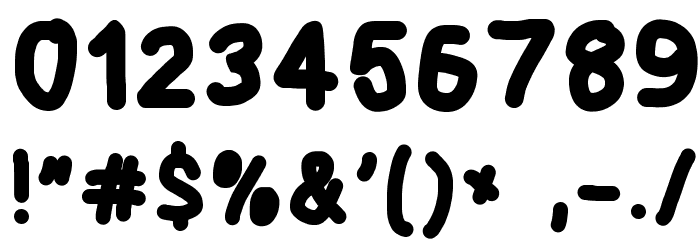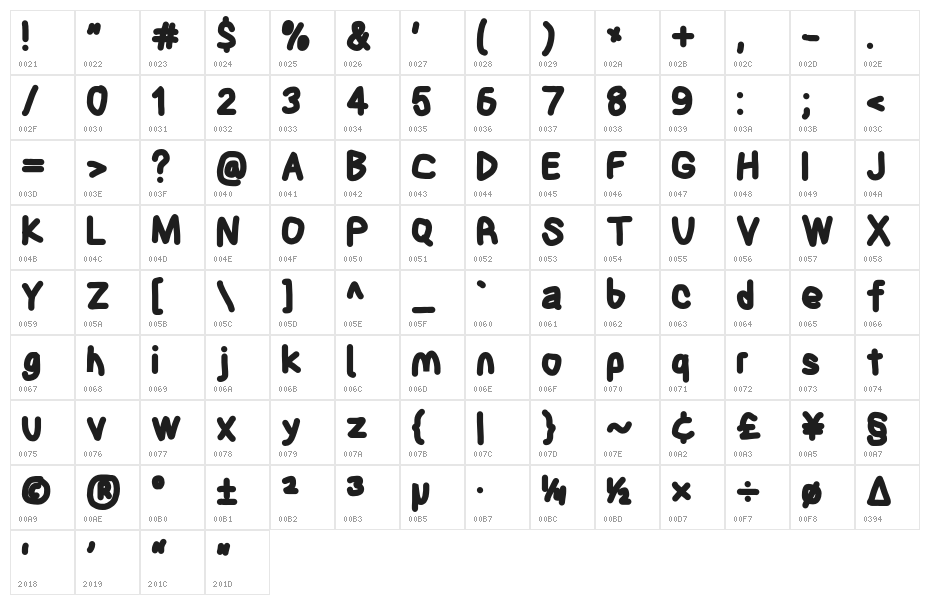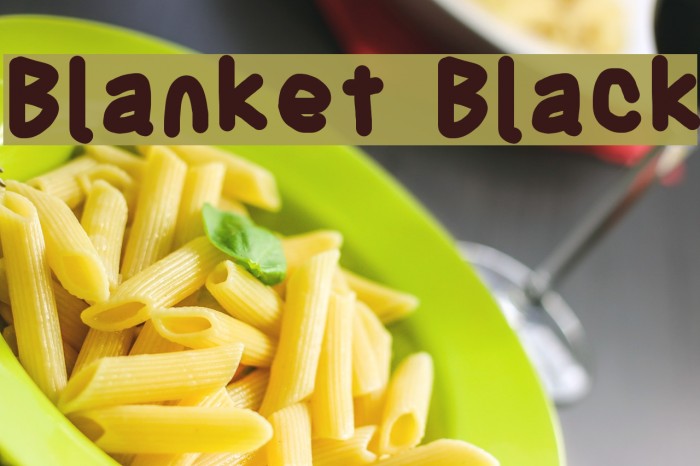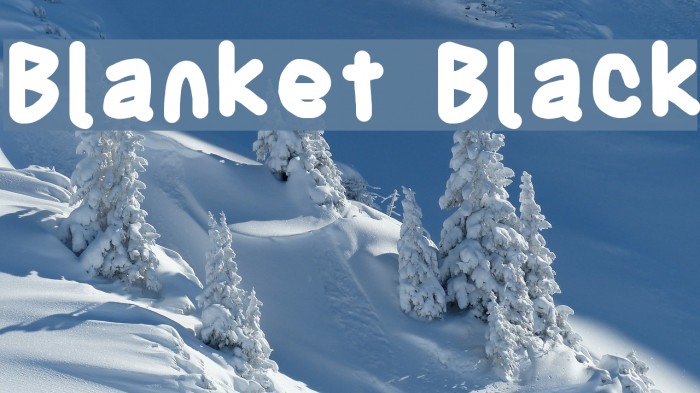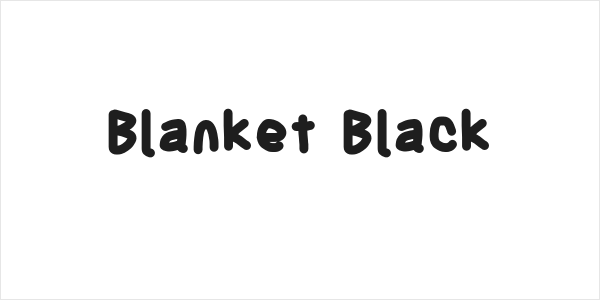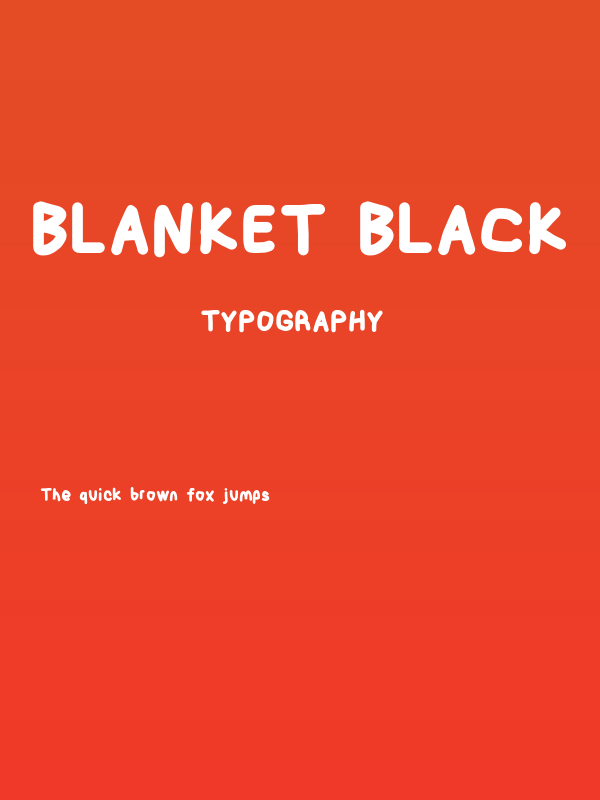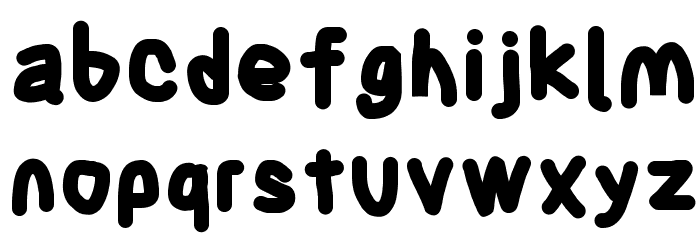
Blanket Black Font
Blanket Black Description
This font features a playful and bold design with rounded edges and a hand-drawn aesthetic. The characters are thick and uniform, giving a sense of warmth and approachability. The uppercase and lowercase letters maintain a consistent style, with a slightly exaggerated width that enhances readability. Numbers and special characters follow the same design principles, ensuring a cohesive look across all text elements. The font's informal style makes it ideal for projects that require a friendly and inviting tone.
Overall StylePlayful
Proposed ProjectsIdeal for children's books, playful branding, casual invitations, and creative posters.